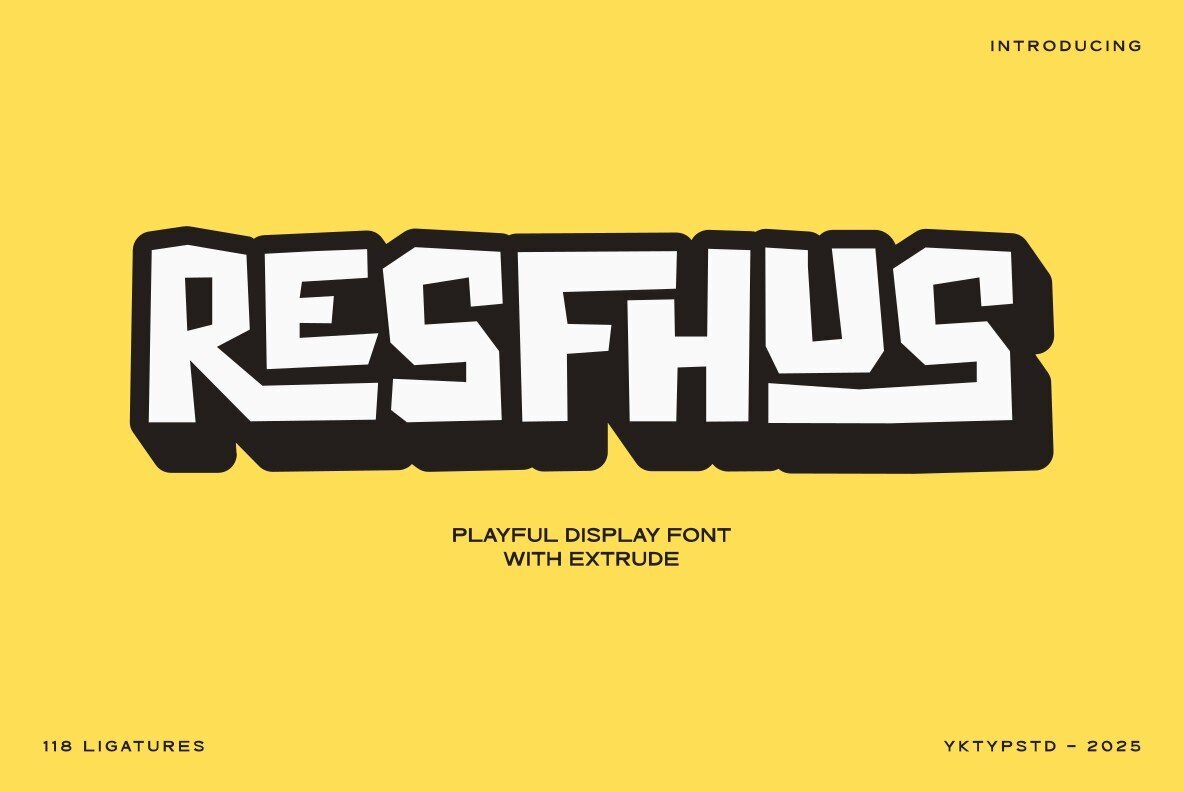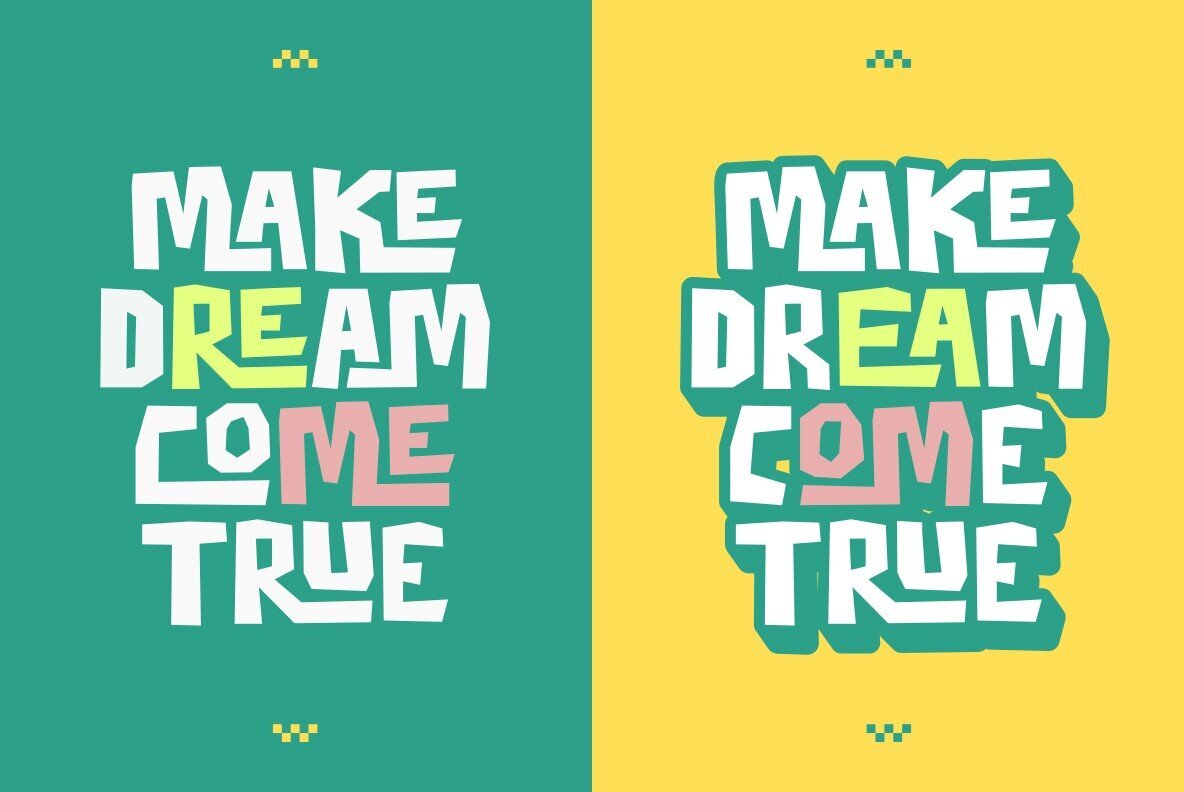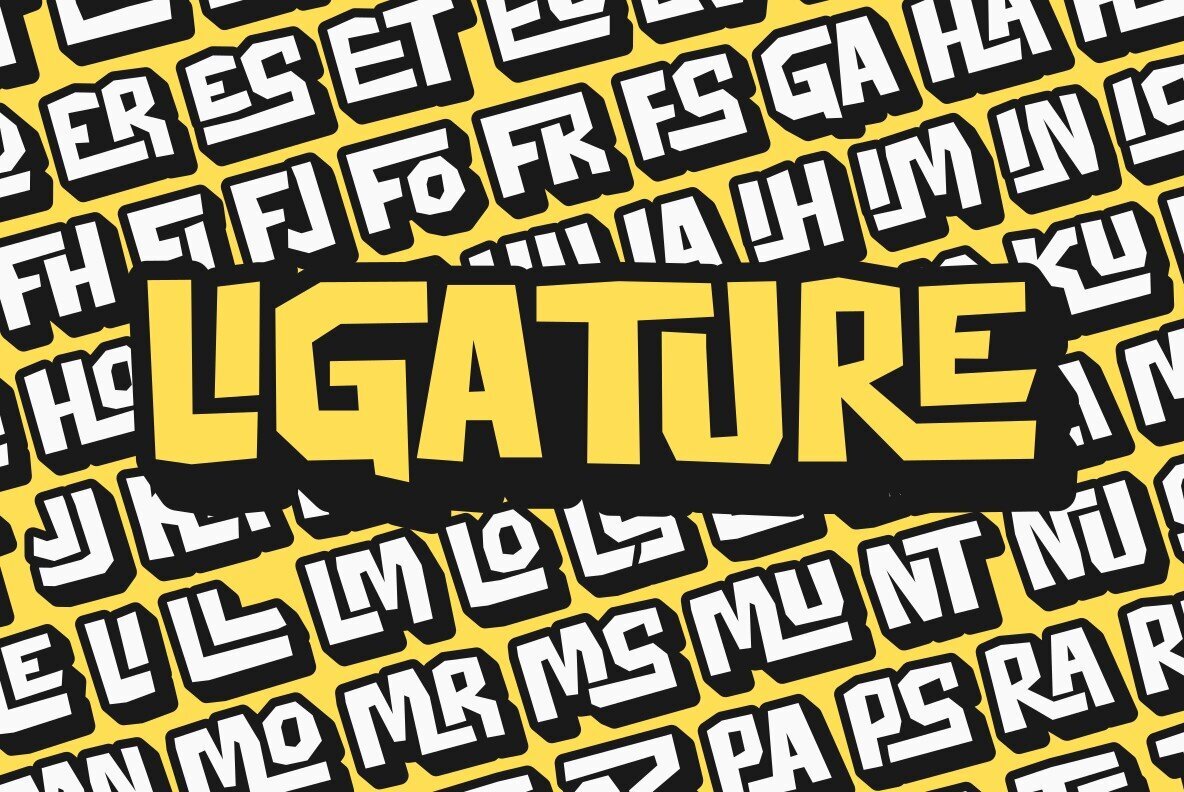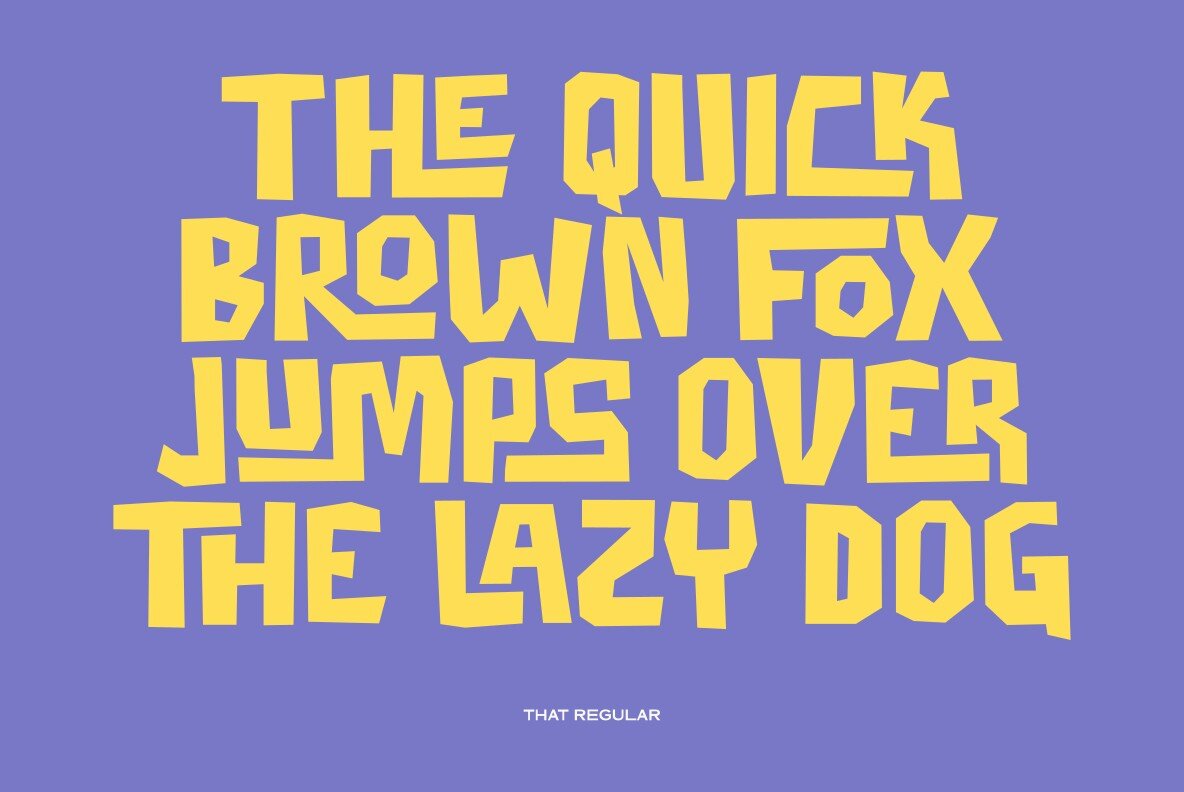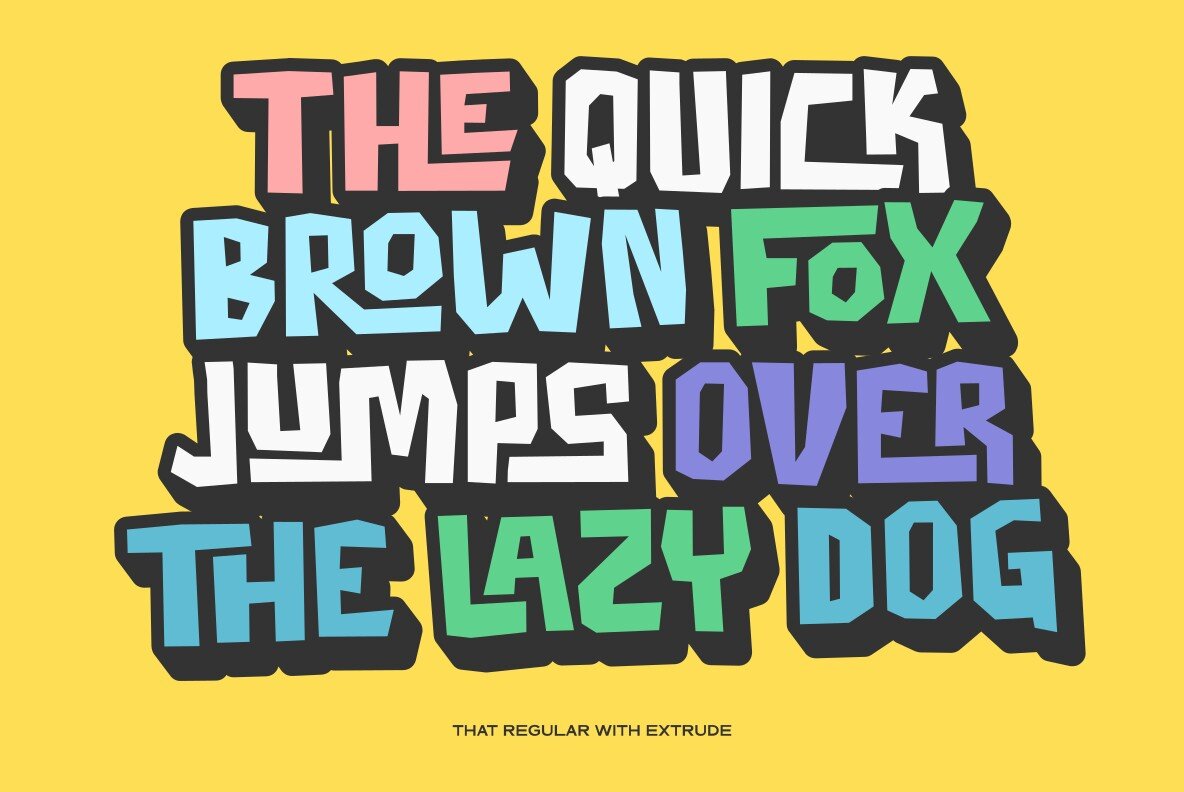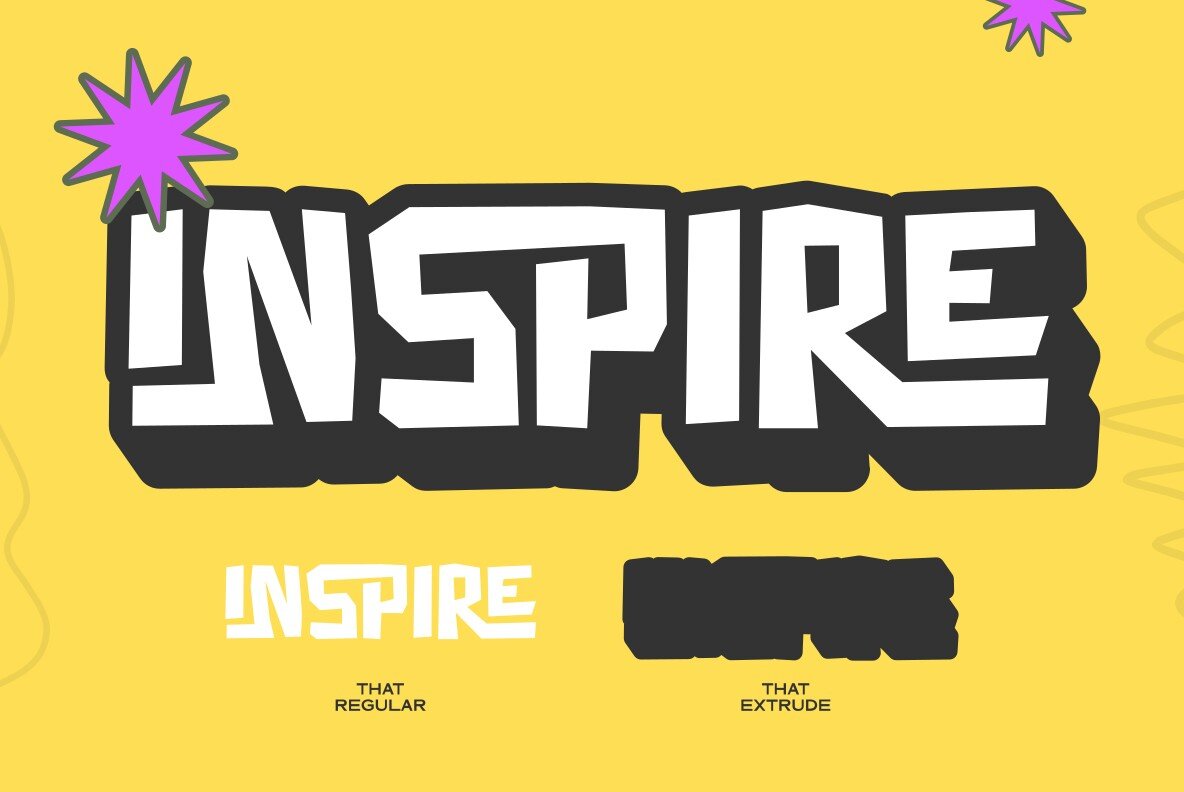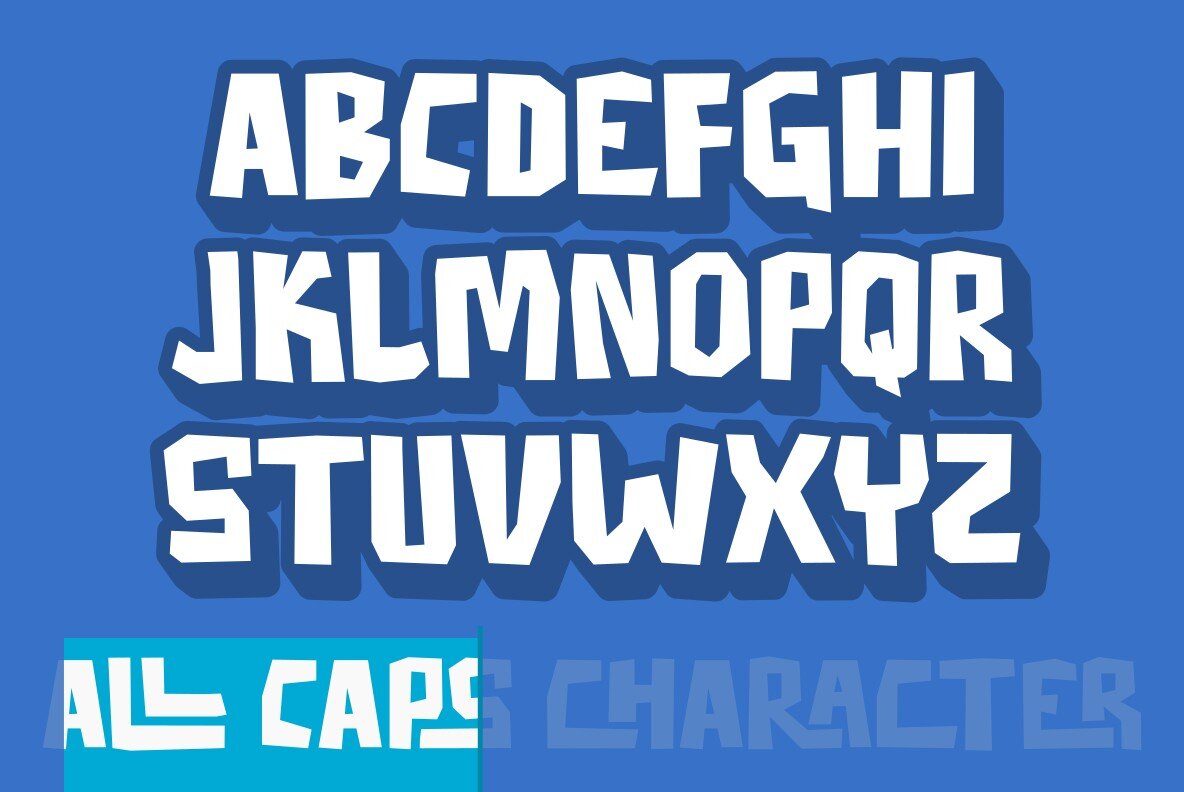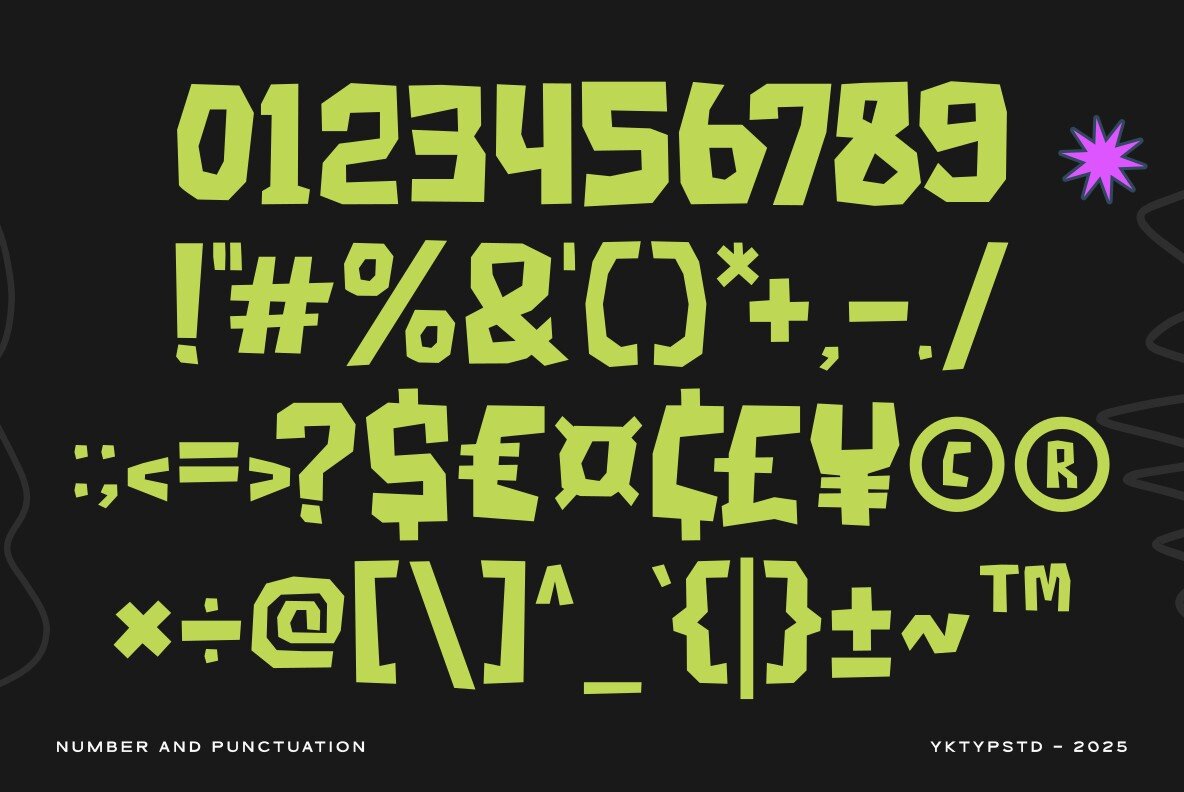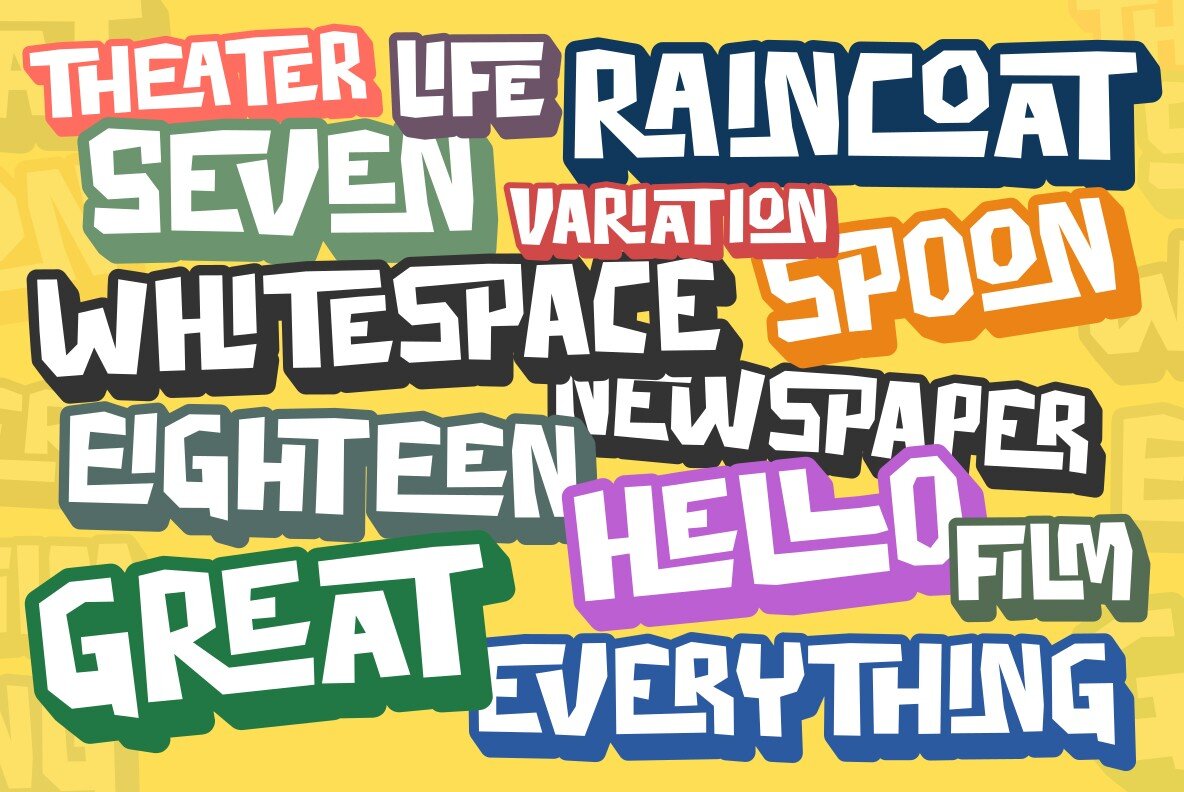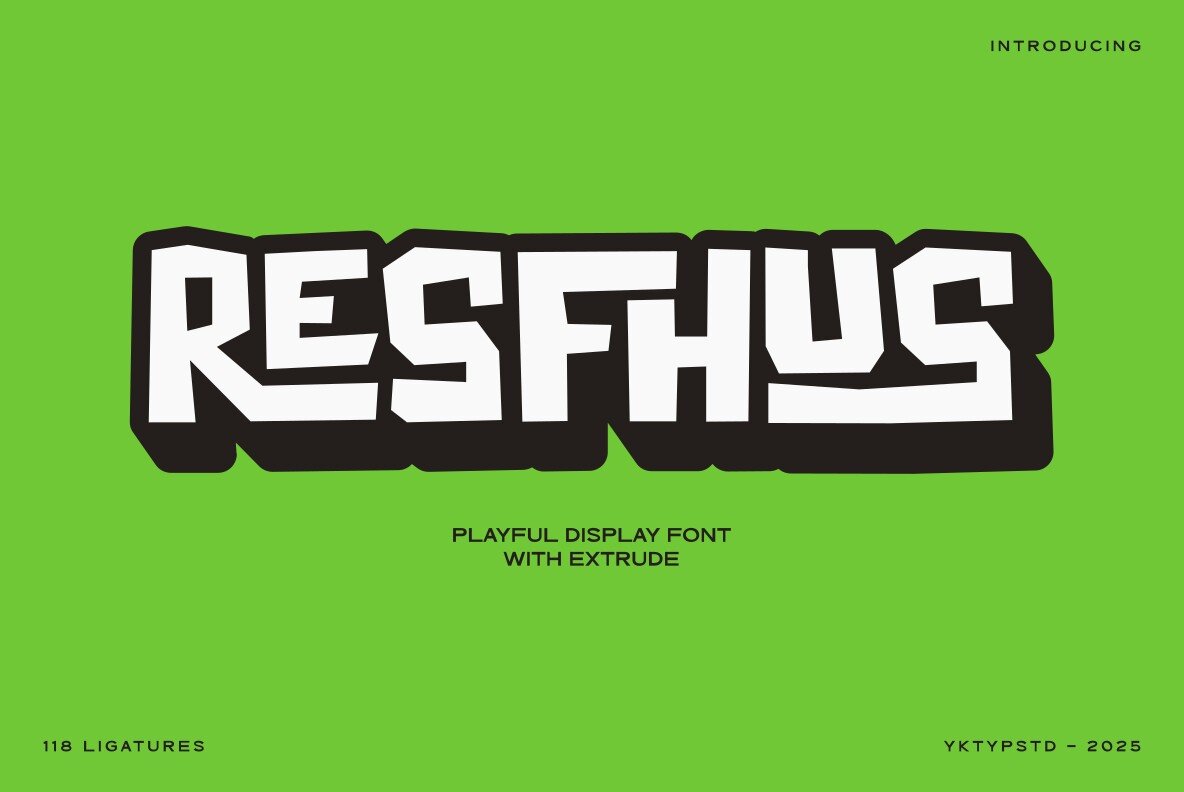
Resfhus Font
Resfhus is a bold display font offered in two distinct styles: regular and extruded. This playful typeface is perfect for bringing a lively touch to your design projects. Whether you're creating eye-catching titles, intriguing labels, or imaginative stickers, Resfhus adds a whimsical flair that captures attention.
Ideal for captivating book covers, dynamic posters, standout social media advertisements, and enchanting packaging designs, this font elevates your work's visual impact. Its versatility and character make it a valuable asset for any designer looking to infuse their projects with creativity and energy.